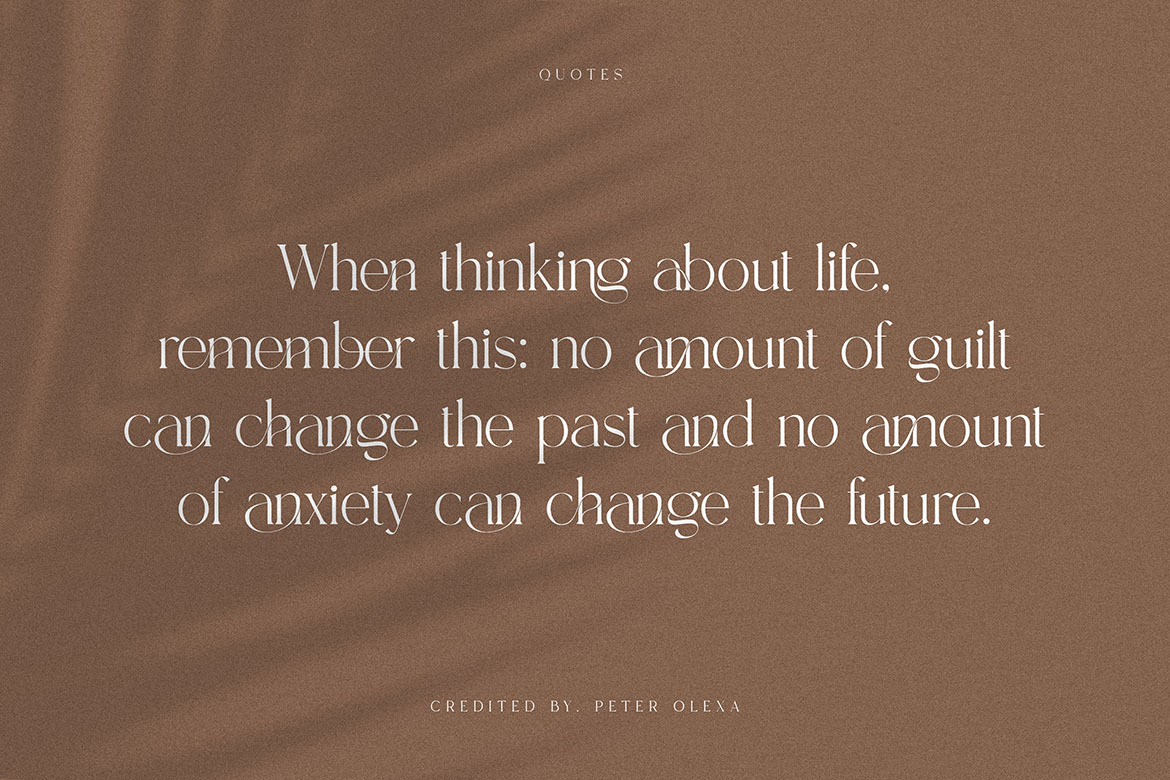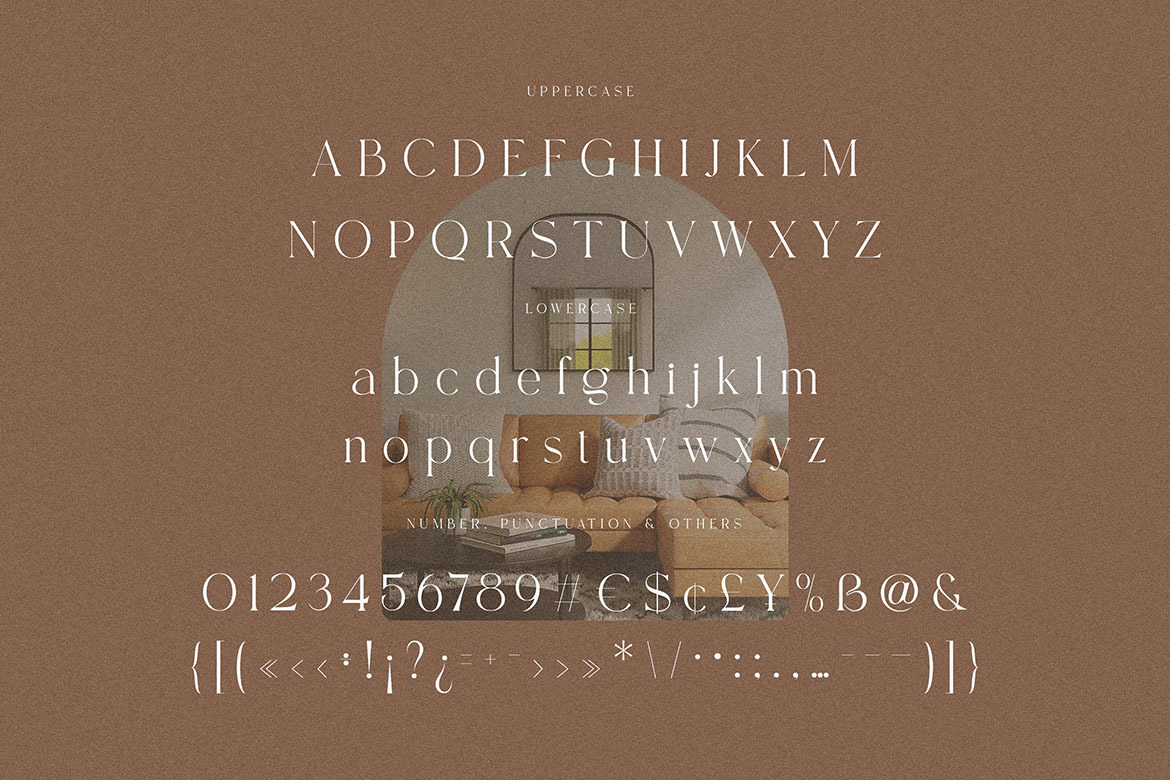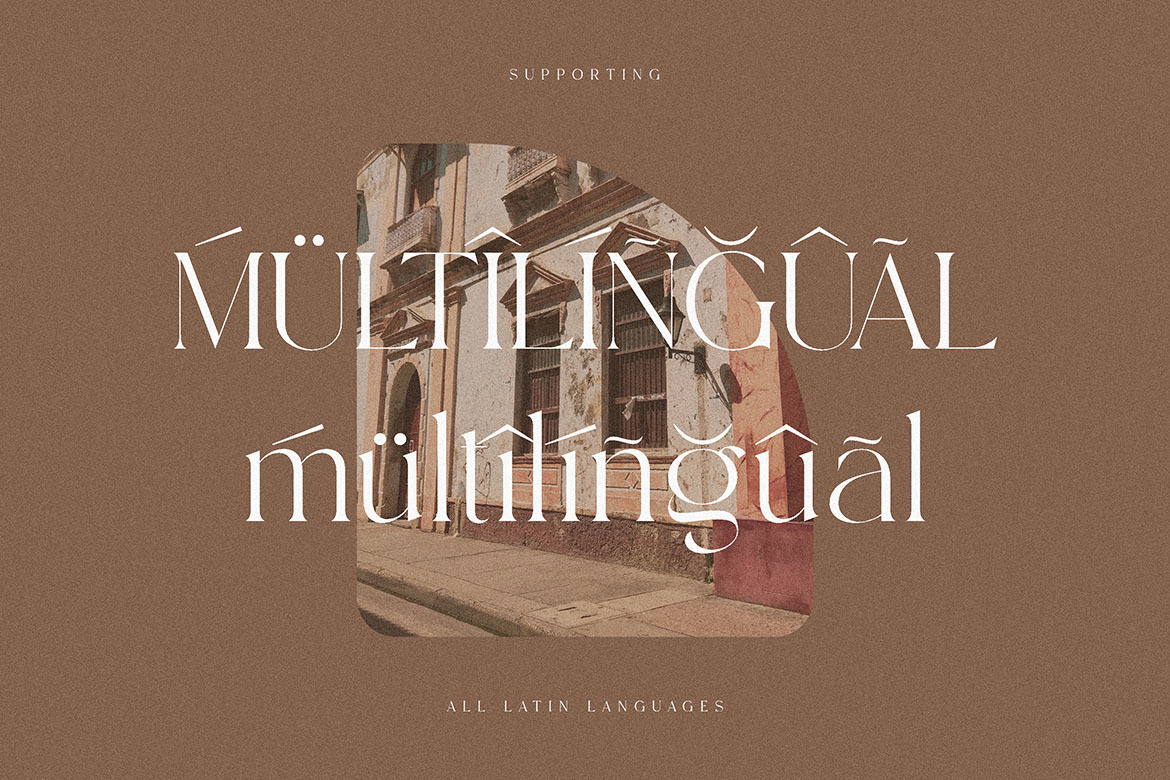
Wimberley - Elegant Serif Font
Trendy, classy & modern style serif font for your fancy projects. Elegant, fashion and classic style on Wimberley font will be great for any branding project. Lot of alternates and ligatures will help you to create unique and original logo design or website header! Enjoy :)
-Multilingual support
-Lot of alternate characters
-Lot of ligatures
-Great for modern branding projects!